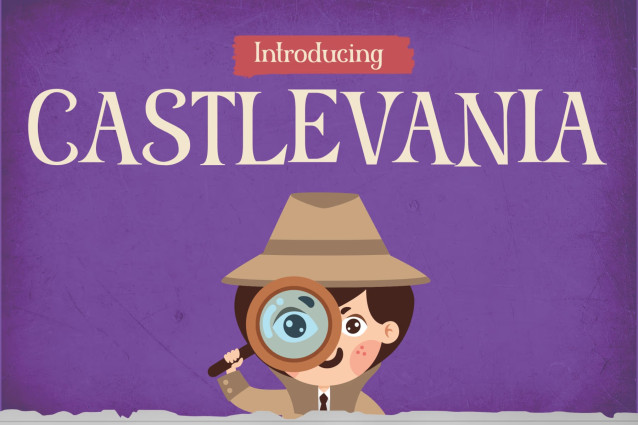
Castlevania Font
Castlevania – Playful Mystery Kids Font Adventure
Kids Font Castlevania is a charming display typeface that blends playful storytelling with a light mystery vibe. At first glance, it feels fun, curious, and full of character. Moreover, its slightly vintage letterforms and soft decorative details create a storybook aesthetic. Each letter is designed to spark imagination, so your text feels like part of an adventure. In addition, the font carries a whimsical tone that makes it both engaging and easy to read. Because of its unique style, Castlevania turns simple words into narrative-driven visuals. With support for 67 languages, it also helps creators share stories with kids around the world.
Kids Font Castlevania combines classic serif inspiration with a playful twist. As a result, it works beautifully for storytelling designs and themed visuals. Furthermore, the font features clean shapes with subtle decorative touches, which enhance readability while keeping a fun look. In addition, its soft vintage feel makes it perfect for mystery and adventure themes. Whether used in book covers, activity sheets, or educational content, it adds personality and charm. Therefore, designers can create visuals that feel both engaging and imaginative. Not only that, but the font adapts well to both print and digital formats.